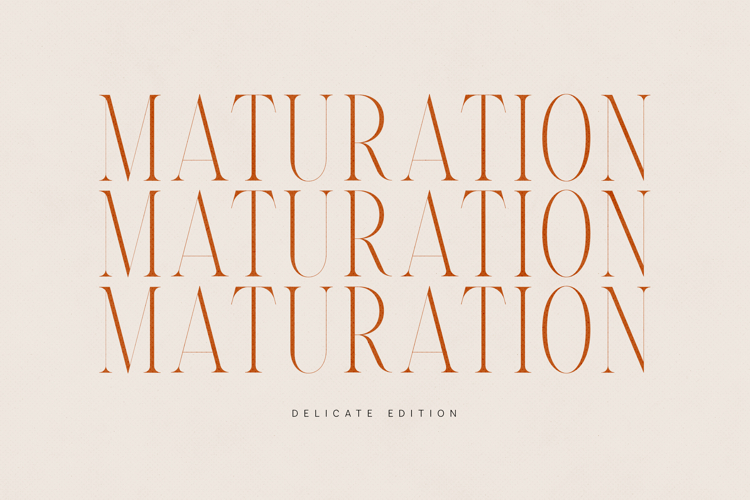
Maturation Elegant High-Contrast Serif Font
Maturation is a refined high-contrast serif font designed with elegance, precision, and timeless sophistication. Featuring delicate hairlines, graceful curves, and sharp serif details, this typeface embodies luxury and editorial excellence.
Perfect for premium branding, fashion magazines, luxury packaging, book covers, logos, and high-end visual identities, Maturation delivers a striking presence in large display settings while maintaining a delicate and balanced structure.
The font includes uppercase, lowercase, numerals, punctuation, symbols, and extended multilingual support, making it ideal for international design projects. Its modern serif construction blends classic inspiration with contemporary refinement.
If you’re looking for a typeface that communicates maturity, elegance, and prestige, Maturation is the perfect choice.